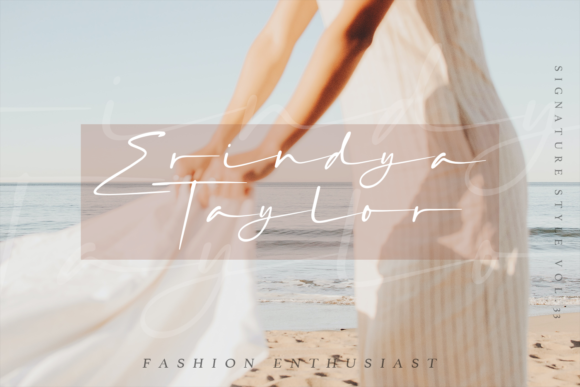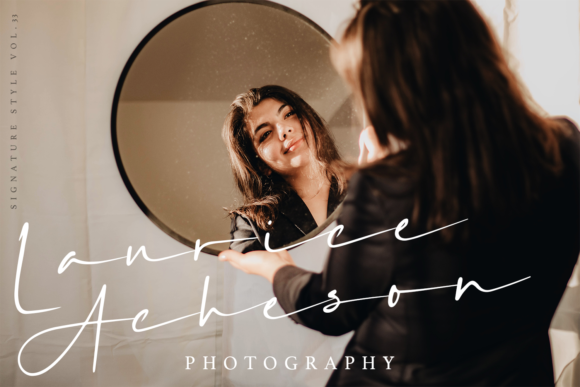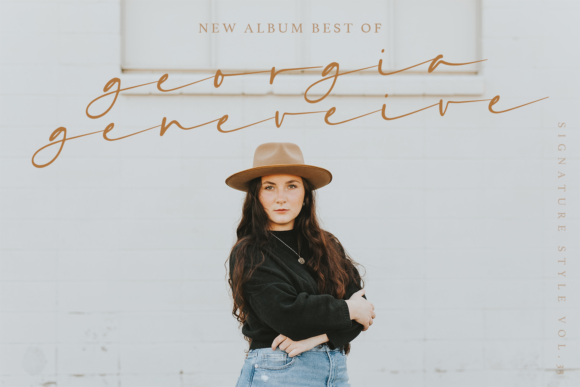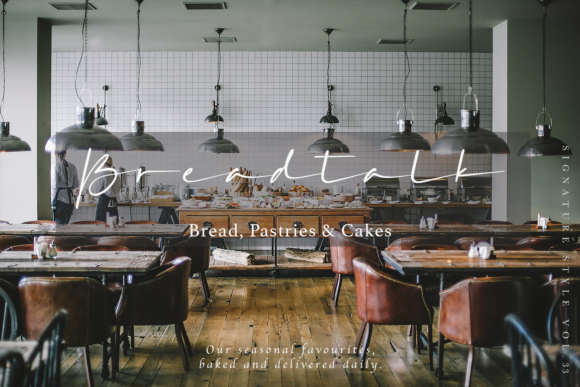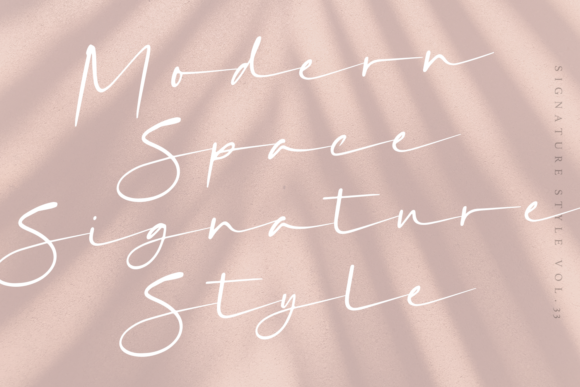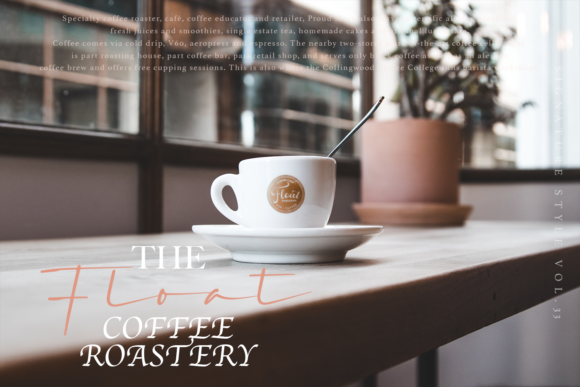
Introduction to Silver Sands Font
Silver Sands is a relaxed and incredibly unique handwritten font.
Fall in love with its incredibly versatile style and use it to create gorgeous wedding invitations, beautiful stationary art, eye-catching social media posts, and much more .
Key Features of Silver Sands Font